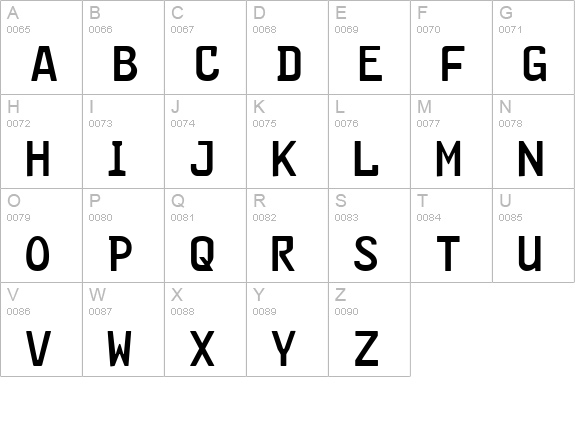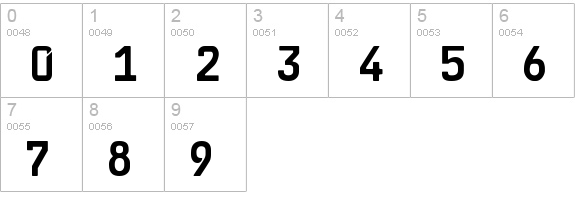
FE-Font Font Details
Introducing FE-Font, a stunning and versatile font that will elevate your design projects to new heights. With its sleek and modern appearance, FE-Font is perfect for a wide range of applications, from branding to editorial design. This font features clean lines and a contemporary feel that will give your designs a fresh and professional look. Whether you're working on a logo, website, or print materials, FE-Font is sure to make a bold statement. The best part? FE-Font is completely free to download at FontsMarket.com. Yes, you read that right - you can get your hands on this amazing font without spending a dime. So why wait? Head over to FontsMarket.com now and add FE-Font to your collection today!